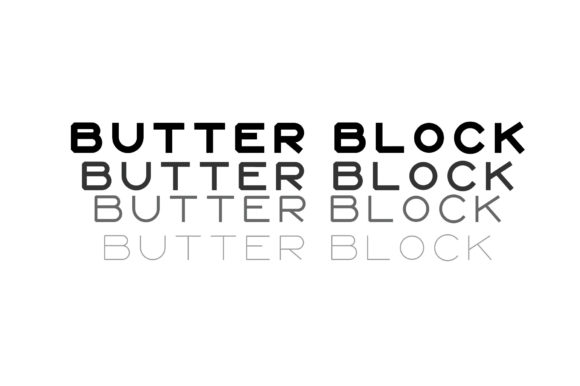
Journey into the realm of sophistication and elegance with Butter Block Font – a minimalist sans serif font that will elevate your designs to new heights of allure. Crafted with precision and purpose, Butter Block is the epitome of timeless beauty, captivating audiences with its clean lines and understated charm.
Born from the creative vision of pointsandpicas, Butter Block possesses an innate versatility that makes it an indispensable asset for any designer’s arsenal. From sleek logos that exude professionalism to eye-catching headlines that demand attention, this font effortlessly adapts to your creative vision, seamlessly blending into your designs and amplifying their impact.
Unleash your creativity and witness the transformation as Butter Block seamlessly integrates into a myriad of design projects, enhancing and elevating them with its understated grace. Add a touch of sophistication to your branding materials, create captivating social media posts, or craft stunning website designs that leave a lasting impression.
With Butter Block as your trusted font companion, you’ll discover endless possibilities for expressing your unique style. Its versatility extends beyond traditional boundaries, allowing you to infuse your designs with a touch of elegance and refinement, regardless of your creative endeavor.
Say goodbye to mundane and uninspiring fonts and embrace the allure of Butter Block. As you witness the remarkable transformation it brings to your designs, you’ll understand why it’s the font of choice for those seeking timeless sophistication and elegance.
Immerse yourself in the world of Butter Block and experience the power of a font that truly captivates and inspires. Let your creativity soar as you discover new depths of expression, leaving your audience spellbound by the sheer beauty and grace of your designs.